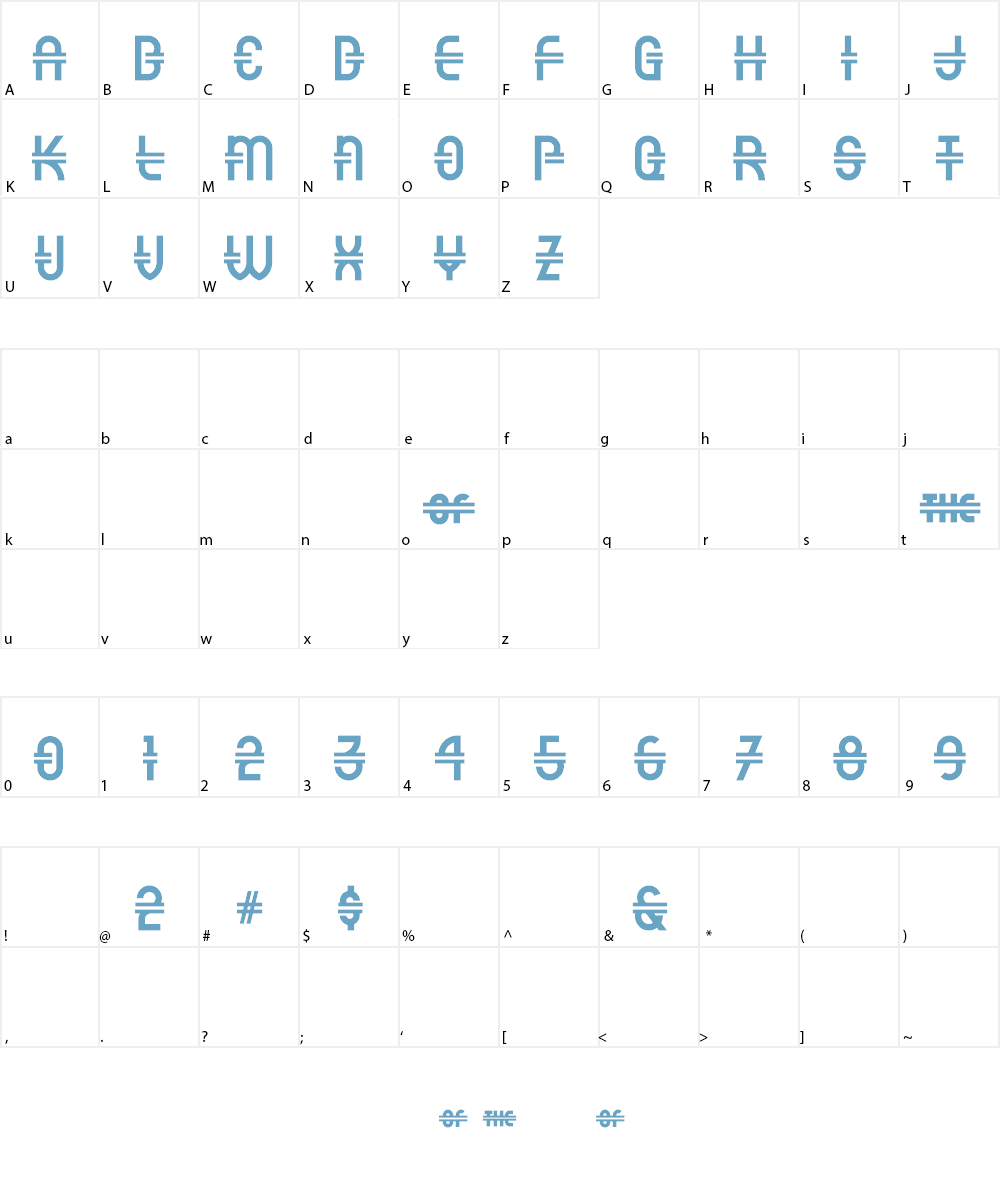
While cruising cyberspace in search of inspiration, I can across a font called Colonial Viper. Its designer had intended to make a futuristic font (and had generally succeeded), but I noticed how well several elements of its design lent themselves to Deco-ization. The result is a funky, semi-streamlined font reminescent of diners of the 1930s. Kind of a one-trick pony, but you get what you pay for.